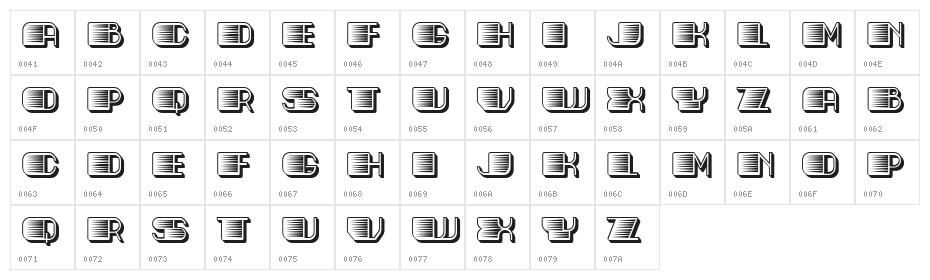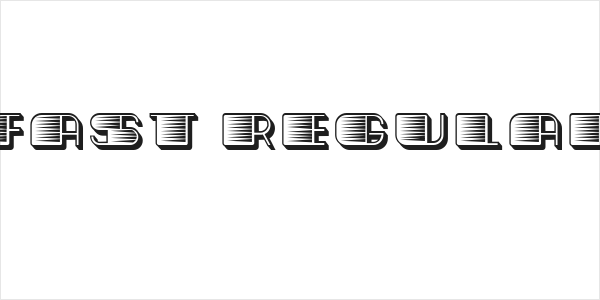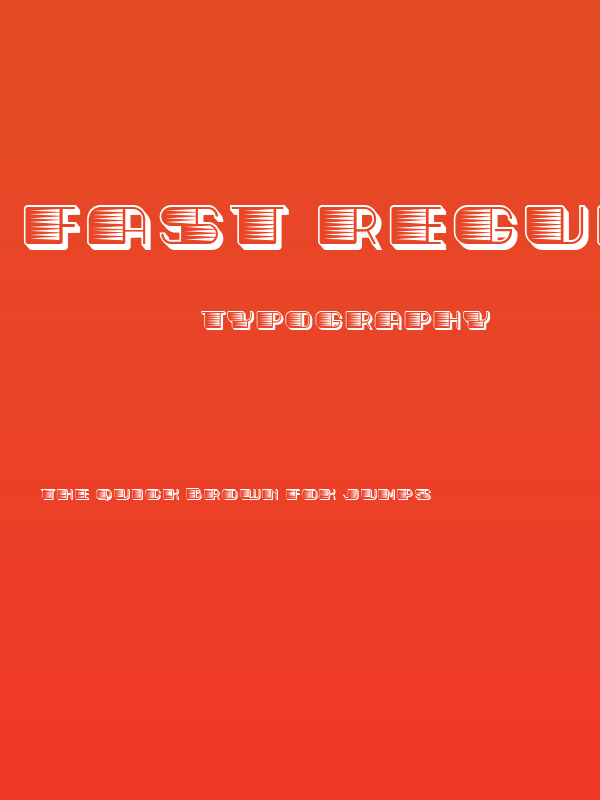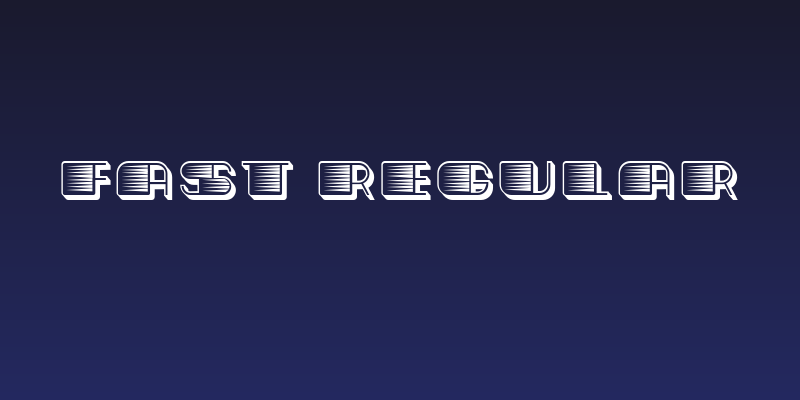
Fast Regular Font
Fast Regular Description
This font features a bold and dynamic design with a distinct 3D effect created by horizontal lines running through each character. The letters are uppercase and have a futuristic, industrial feel, making them stand out with a strong visual impact. The design incorporates a shadow effect that adds depth and dimension, enhancing the overall aesthetic. The font is highly stylized, with each character maintaining a consistent width and height, contributing to a uniform appearance. The unique style makes it suitable for projects that require a modern and eye-catching typeface.
| Proposed Projects | Ideal for branding, posters, video game titles, and any design requiring a modern, impactful look. |